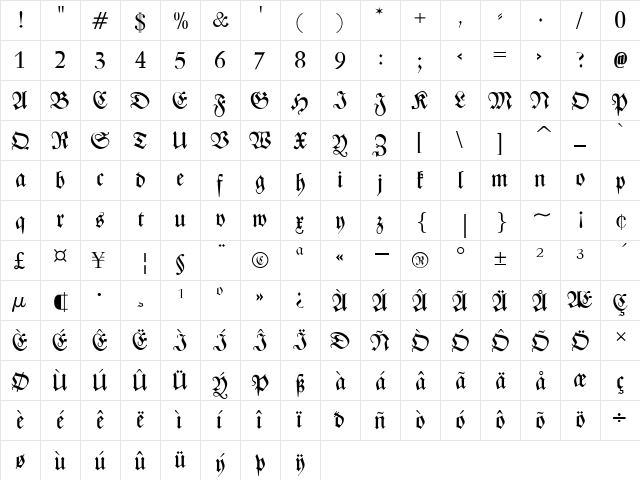
Zentenar Fraktur UNZ1L Regular
| Designer | Friedrich Hermann Ernst Schneidler |
Design Context for Zentenar Fraktur UNZ1L Typeface
Zentenar Fraktur UNZ1L channels the dramatic heritage of Fraktur and Gothic scripts, bringing a sense of historical gravitas to any design.
A natural fit for music packaging, gothic editorial design, and any project that needs historical weight.
Font Pairing: Pair with a clean neutral sans-serif for body copy to let Zentenar Fraktur UNZ1L's character lead without overwhelming the composition.
Pro Tip: Reserve Zentenar Fraktur UNZ1L for display and logo use — pair it with a clean sans-serif for body copy to prevent the composition from feeling oppressive.